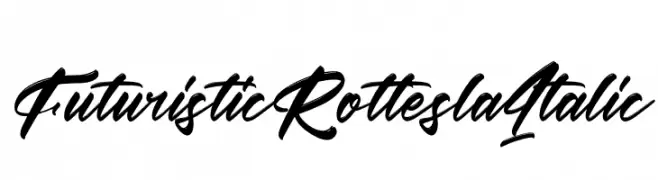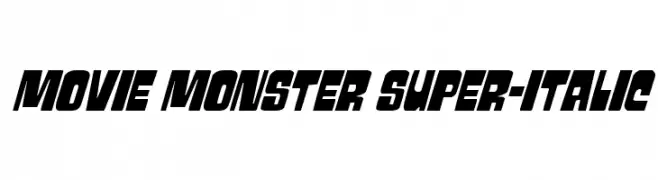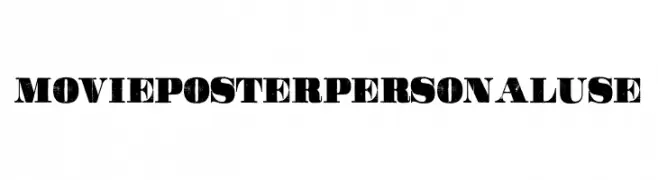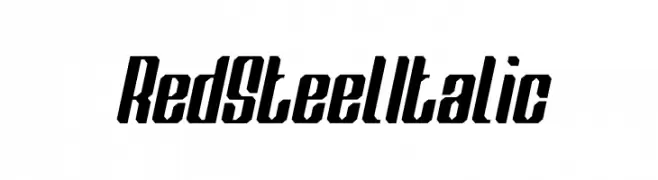
A bold, italicized font with a dynamic and dramatic style.
A bold, cursive script font with a modern, futuristic flair.
A bold, energetic script font with a modern, cursive style.
A bold, dynamic script font with a modern and stylish flair.
A playful, bold script font with a melted chocolate appearance.
A bold, italicized font with an industrial and dynamic style.
A bold, distressed font with a vintage, rugged aesthetic.
A bold, fiery font with jagged, flame-like edges for dramatic impact.
A dynamic, sports-themed font featuring baseball player silhouettes.